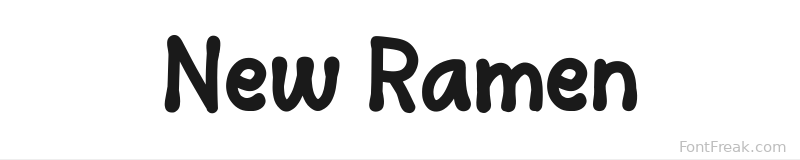
New Ramen
Introducing the New Ramen font by Syaf Rizal, a delightful display typeface that combines a playful aesthetic with contemporary flair. This font is characterized by its rounded, casual letterforms, which evoke a sense of warmth and friendliness. The stroke weight is consistent, resulting in a smooth flow throughout the characters, while the slight contrast adds a touch of visual interest. The spacing is well-balanced, ensuring readability without compromising on style, making it an ideal choice for various design applications.
The New Ramen font is perfect for a range of creative projects. Its whimsical design makes it an excellent choice for restaurant menus, particularly for establishments specializing in Asian cuisine, where it can effectively convey a casual dining experience. Furthermore, it suits wedding invitations, offering a modern twist on traditional typefaces that can appeal to couples looking for something unique. Movie posters can also benefit from the font's distinctive character, as it can attract attention and create a memorable visual impact. Additionally, small business owners can leverage this font in branding materials, including logos and promotional graphics, to create a friendly and approachable brand image.
Targeting graphic designers, small business owners, and content creators, the New Ramen font provides an exciting option for those seeking to infuse their projects with personality and charm. Its freeware license allows for easy access and experimentation, making it a go-to choice for creative professionals and enthusiasts alike.
What sets the New Ramen font apart is its ability to balance playfulness with functionality. Whether you're designing for print, digital, or anything in between, this font’s unique character and versatility make it a standout choice. Don’t miss out on the New Ramen font free download, and elevate your design projects today.